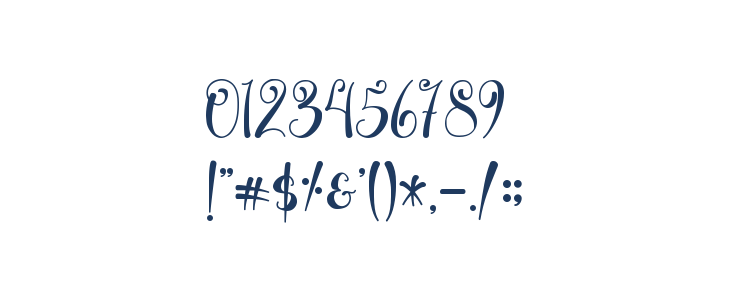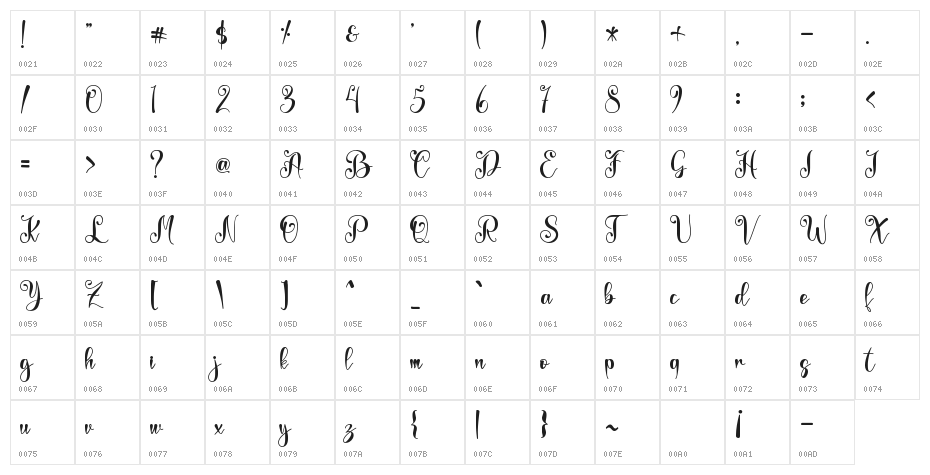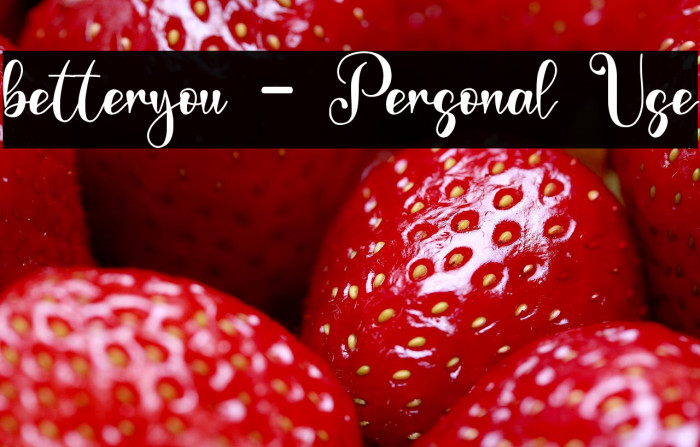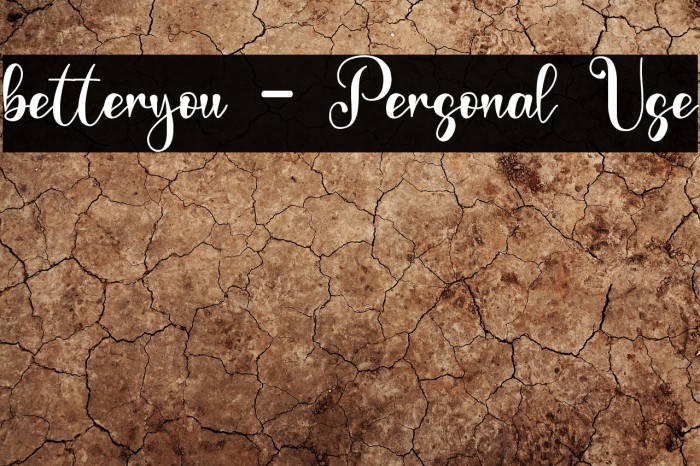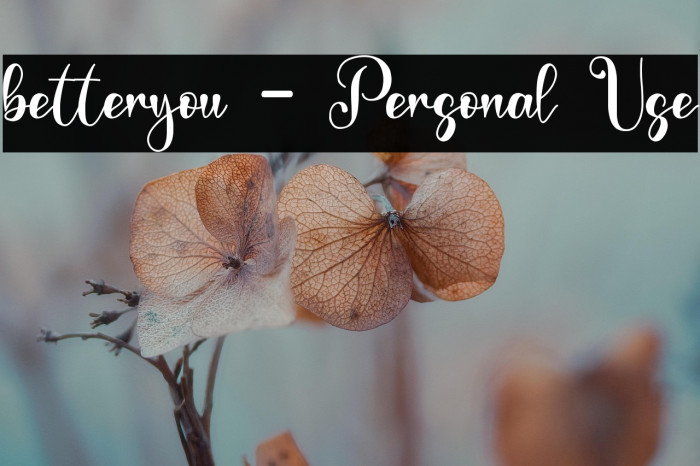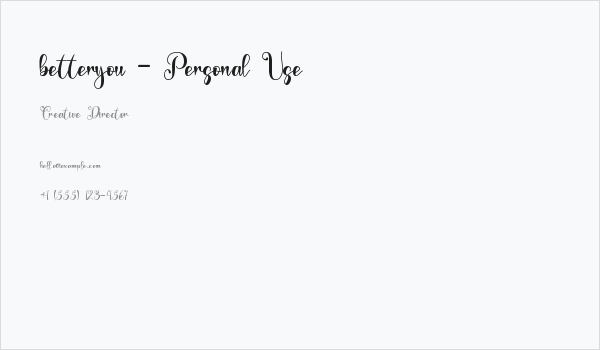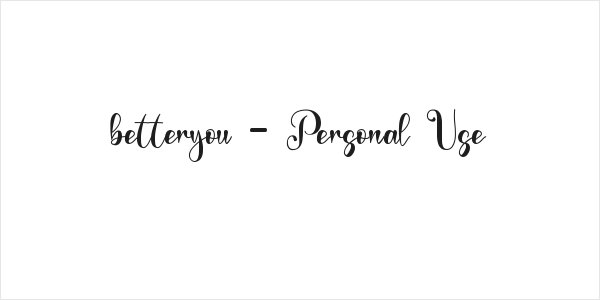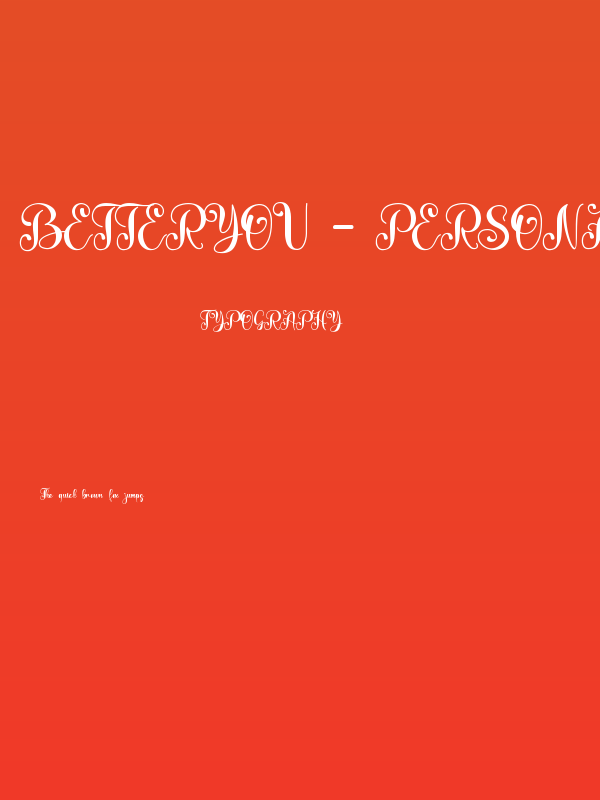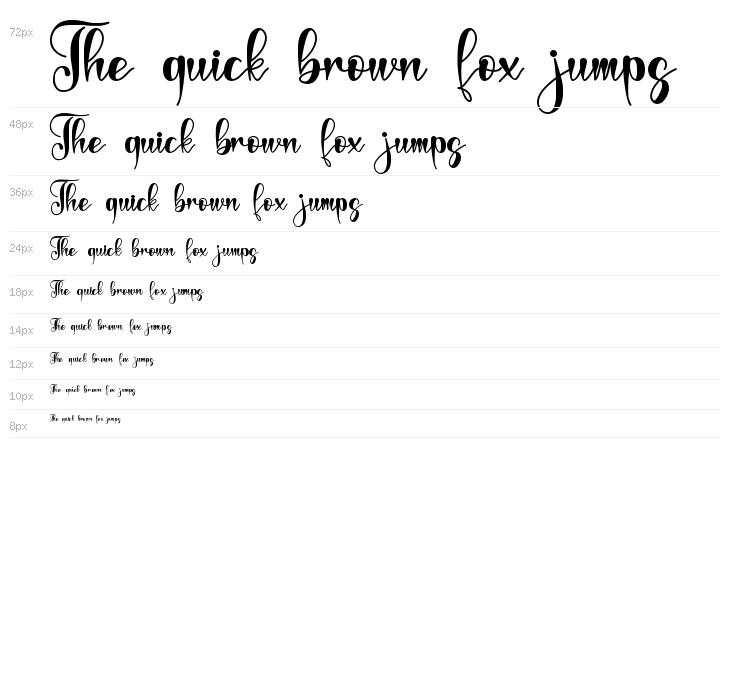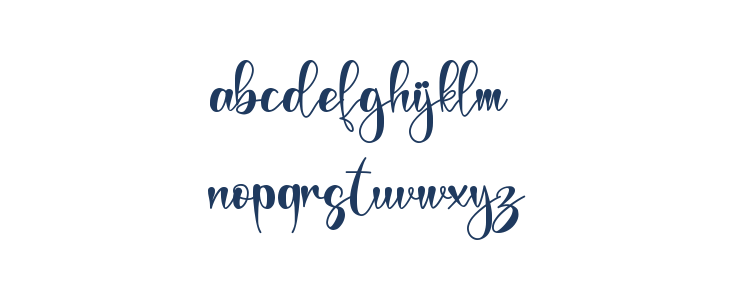
betteryou - Personal Use Font
betteryou - Personal Use Description
This font features an elegant and decorative script style with a playful and whimsical flair. The uppercase letters are adorned with intricate swirls and loops, giving them a sophisticated yet approachable appearance. The lowercase letters maintain a consistent flow, with some characters extending below the baseline, adding to the font's charm. The numerals are bold and slightly rounded, complementing the overall aesthetic. Special characters are creatively designed, maintaining the font's unique style. This font is perfect for projects that require a touch of elegance and creativity.
| Use Case | Logos, Invitations, Decorative Text |
| Proposed Projects | Ideal for wedding invitations, greeting cards, branding, and decorative signage. |